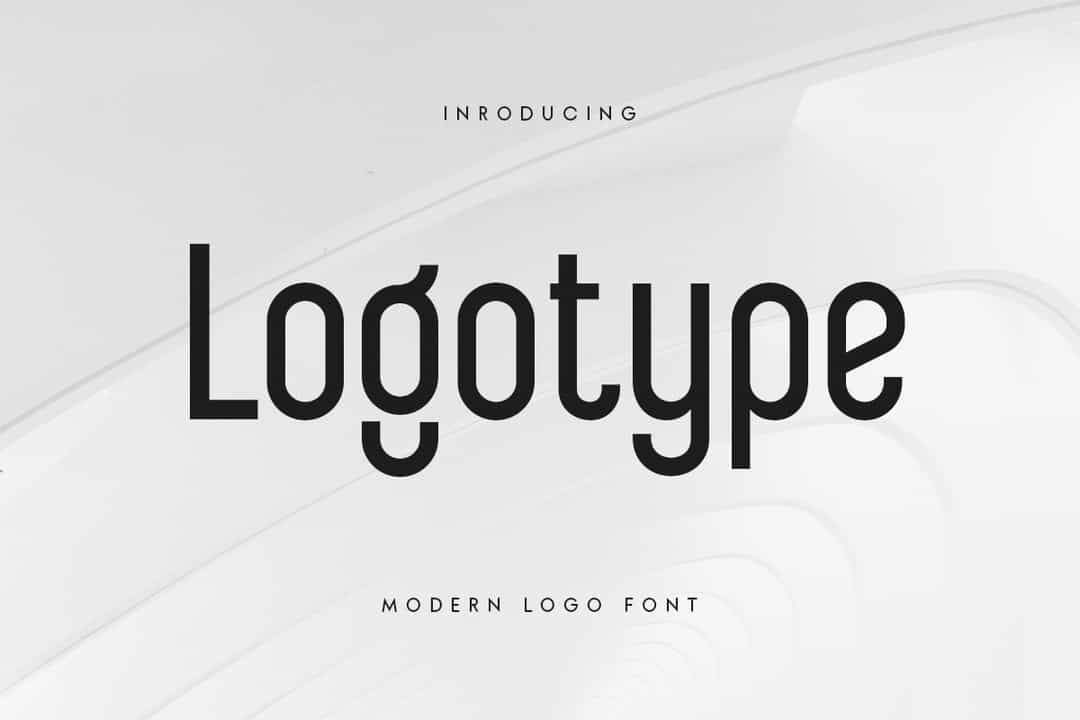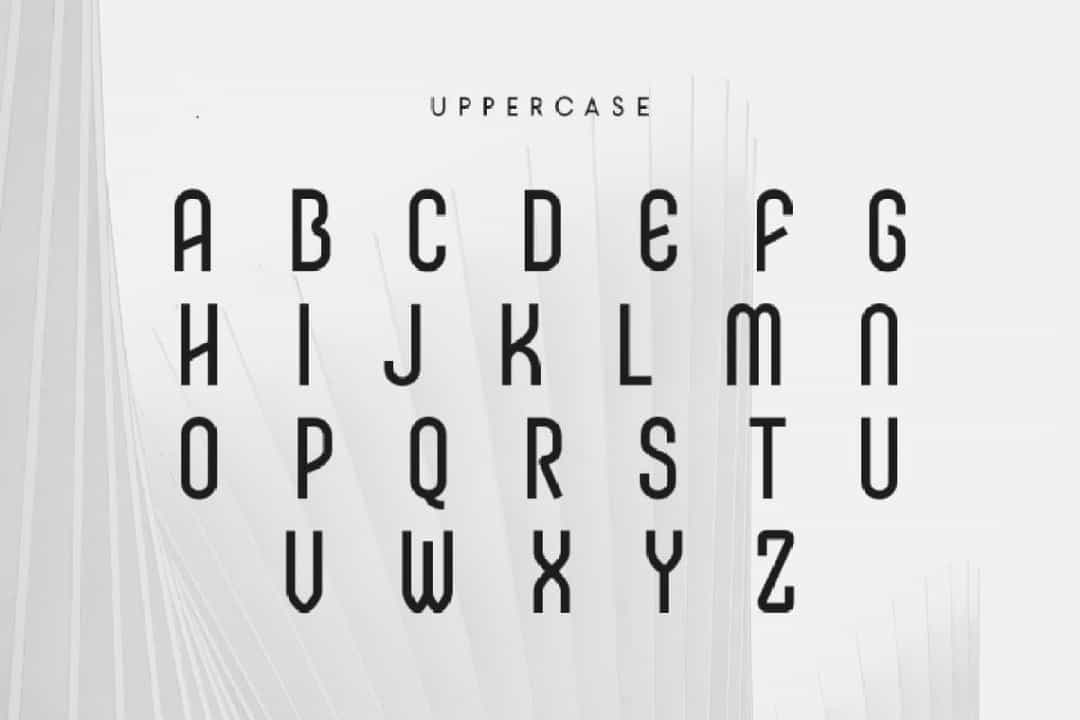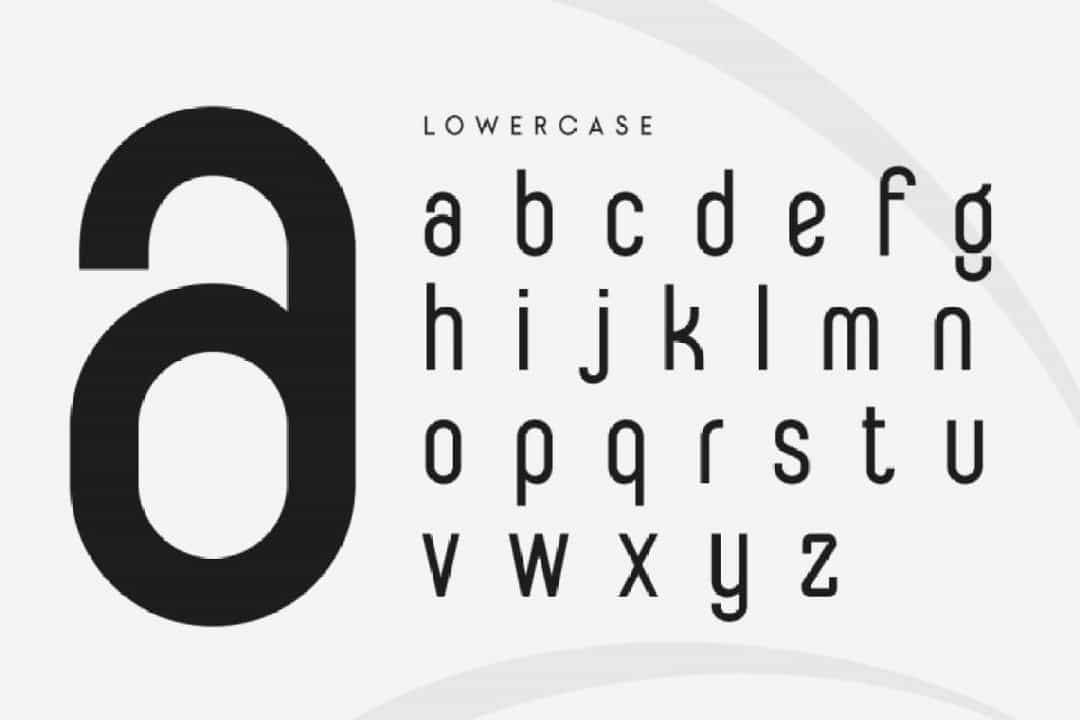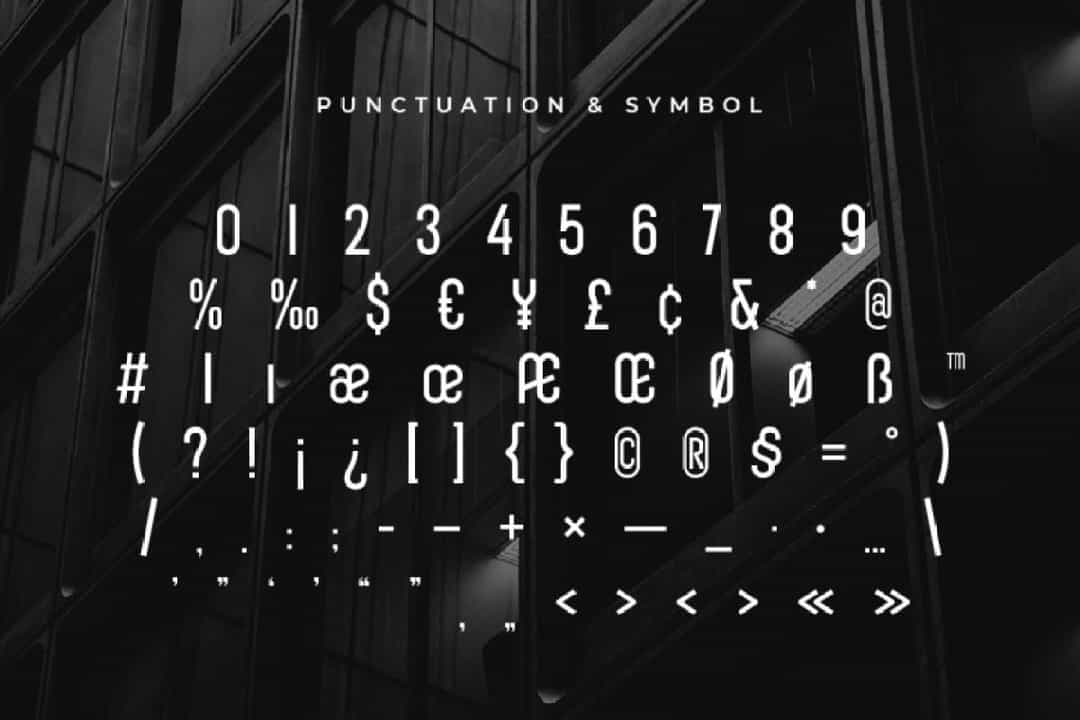
Logotype is Modern Logo Font. It is a modern font that has a minimalist and unique iconic sans design which you can mix to get any variation and unique shapes with their choose ligatures in a matter of seconds.